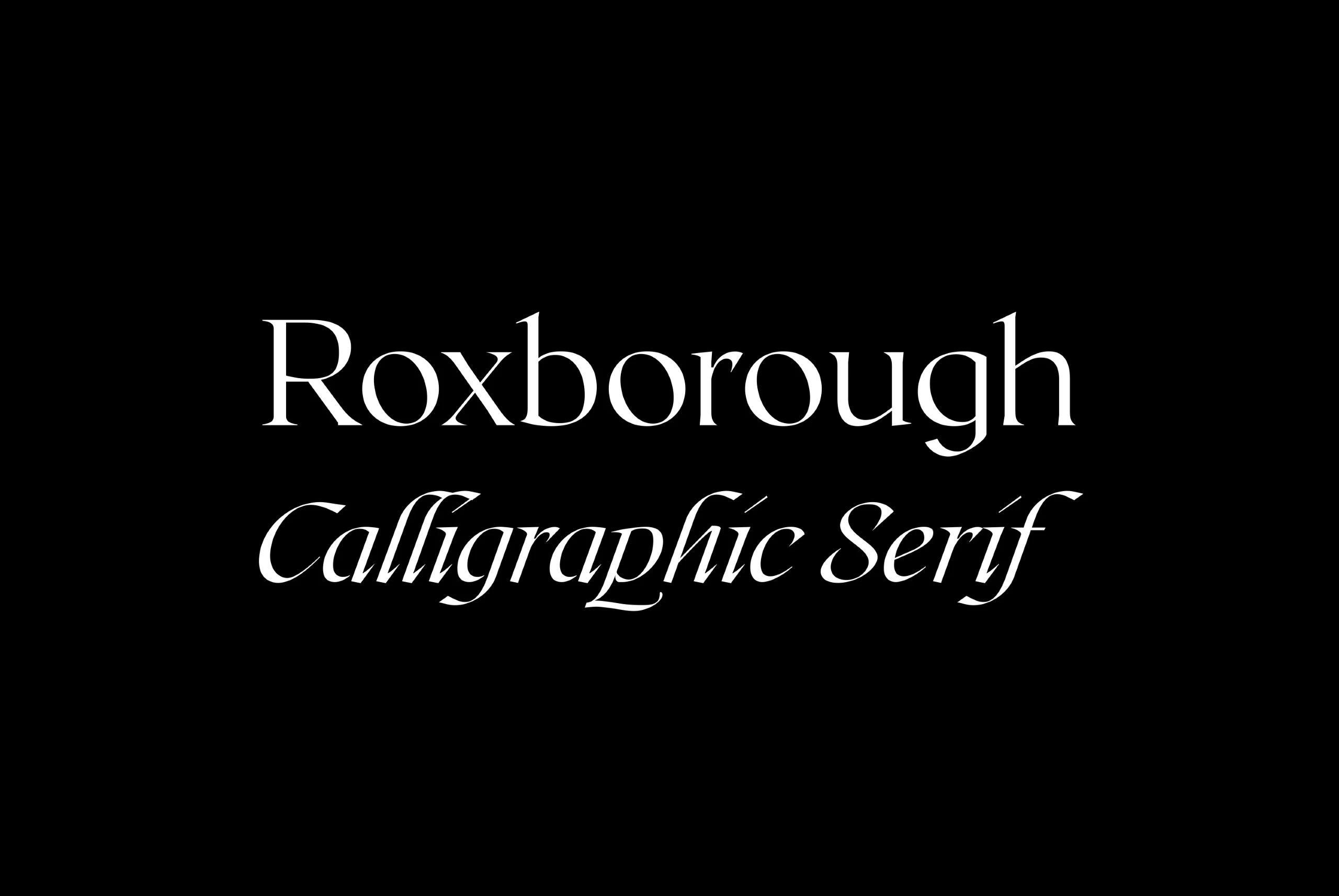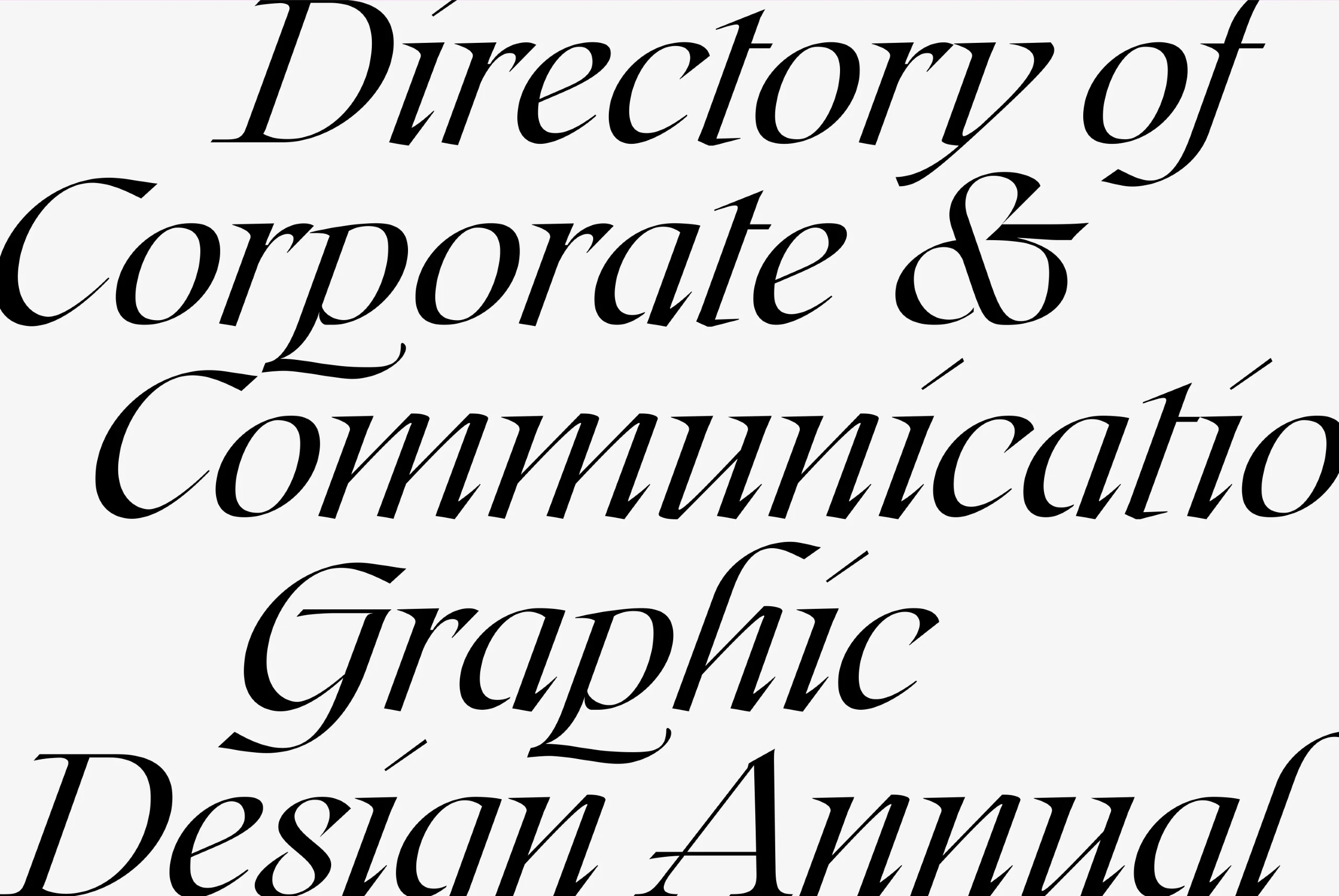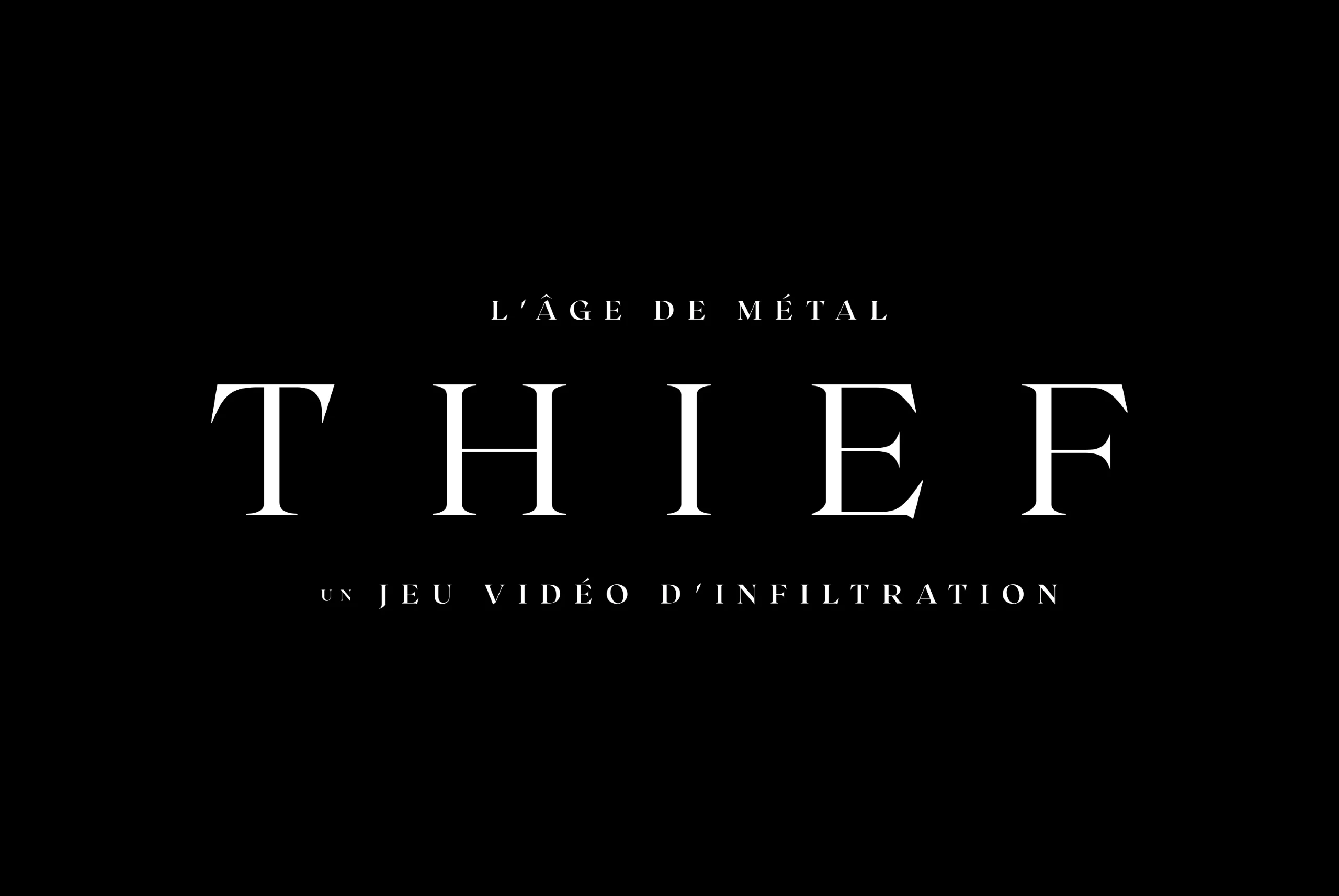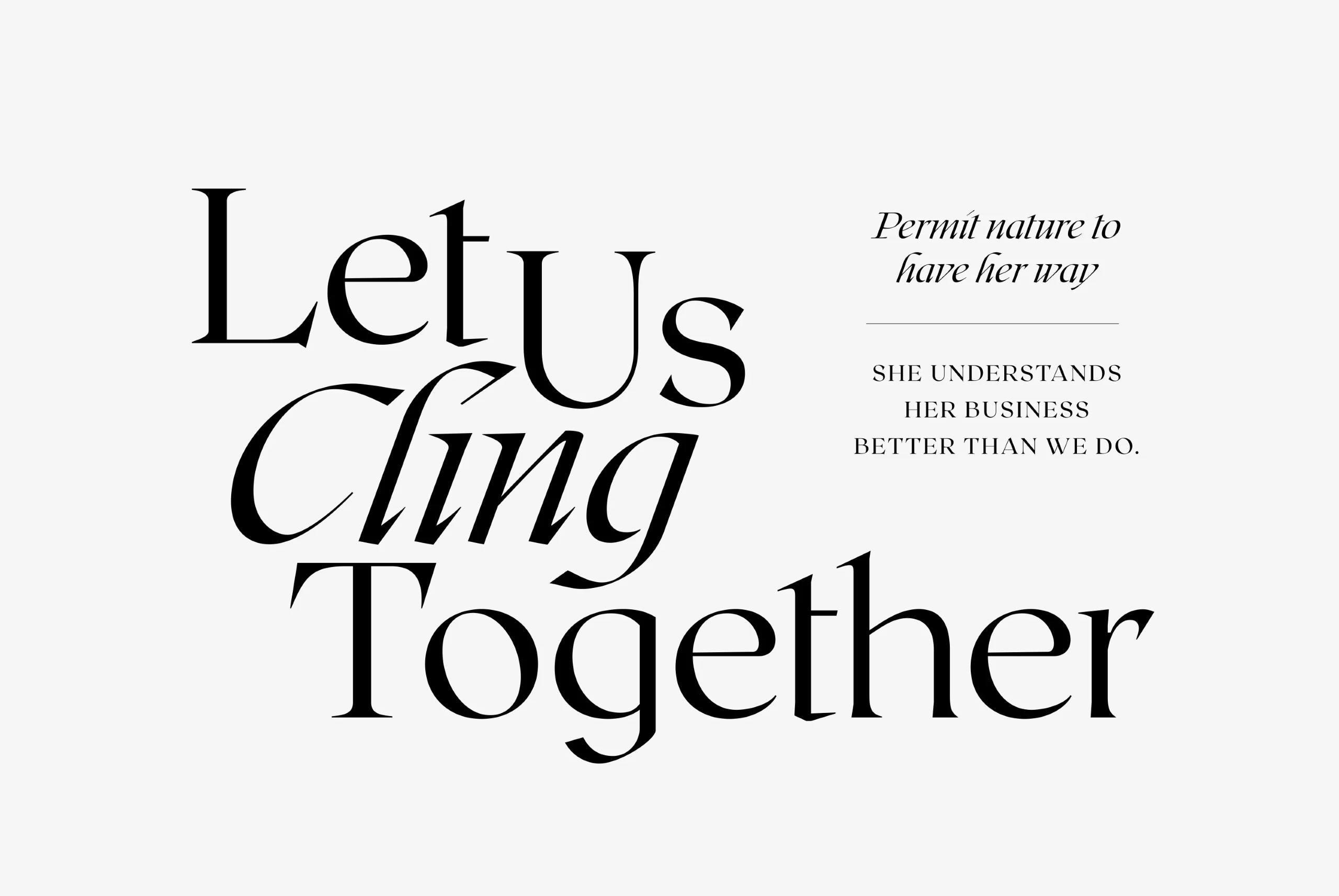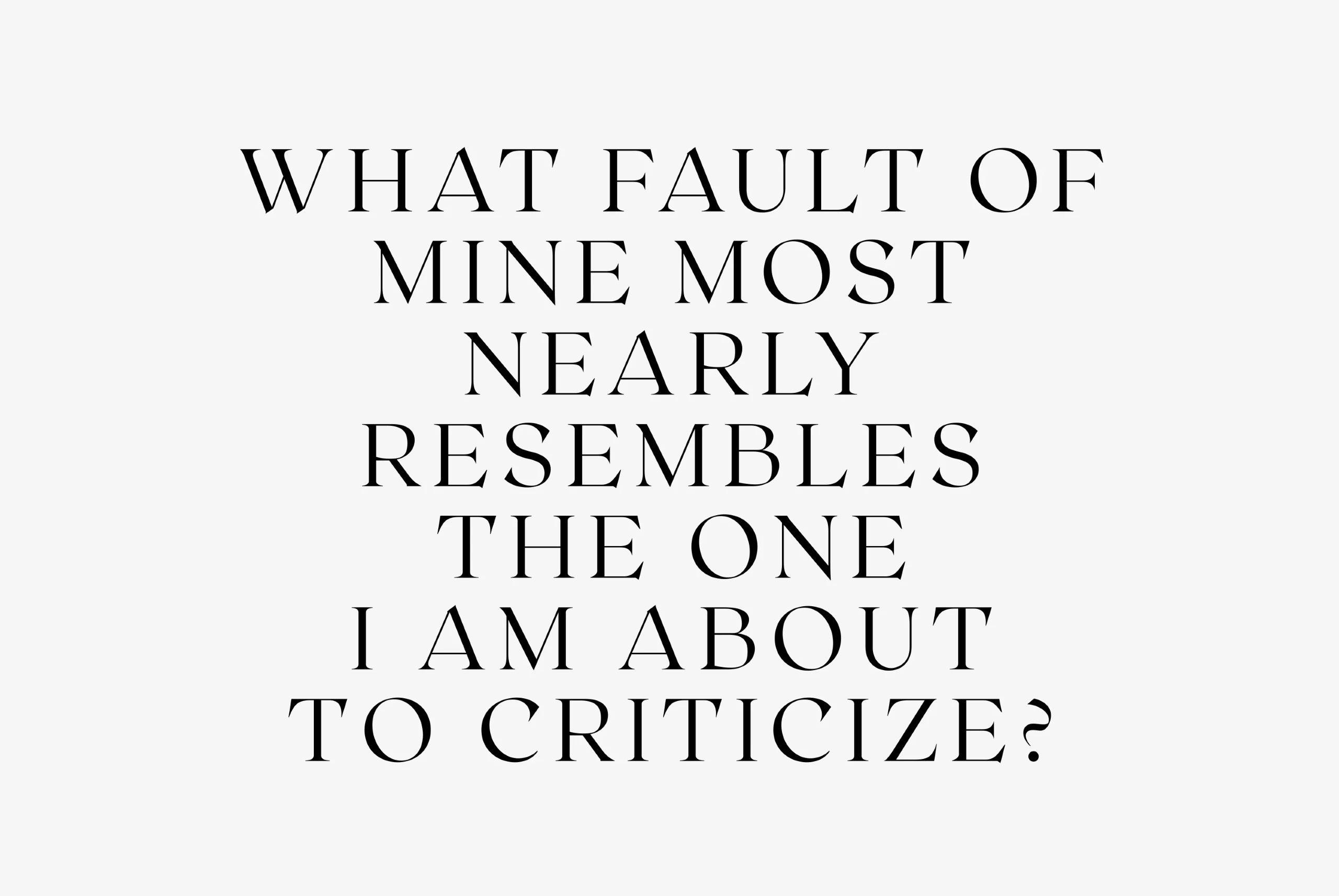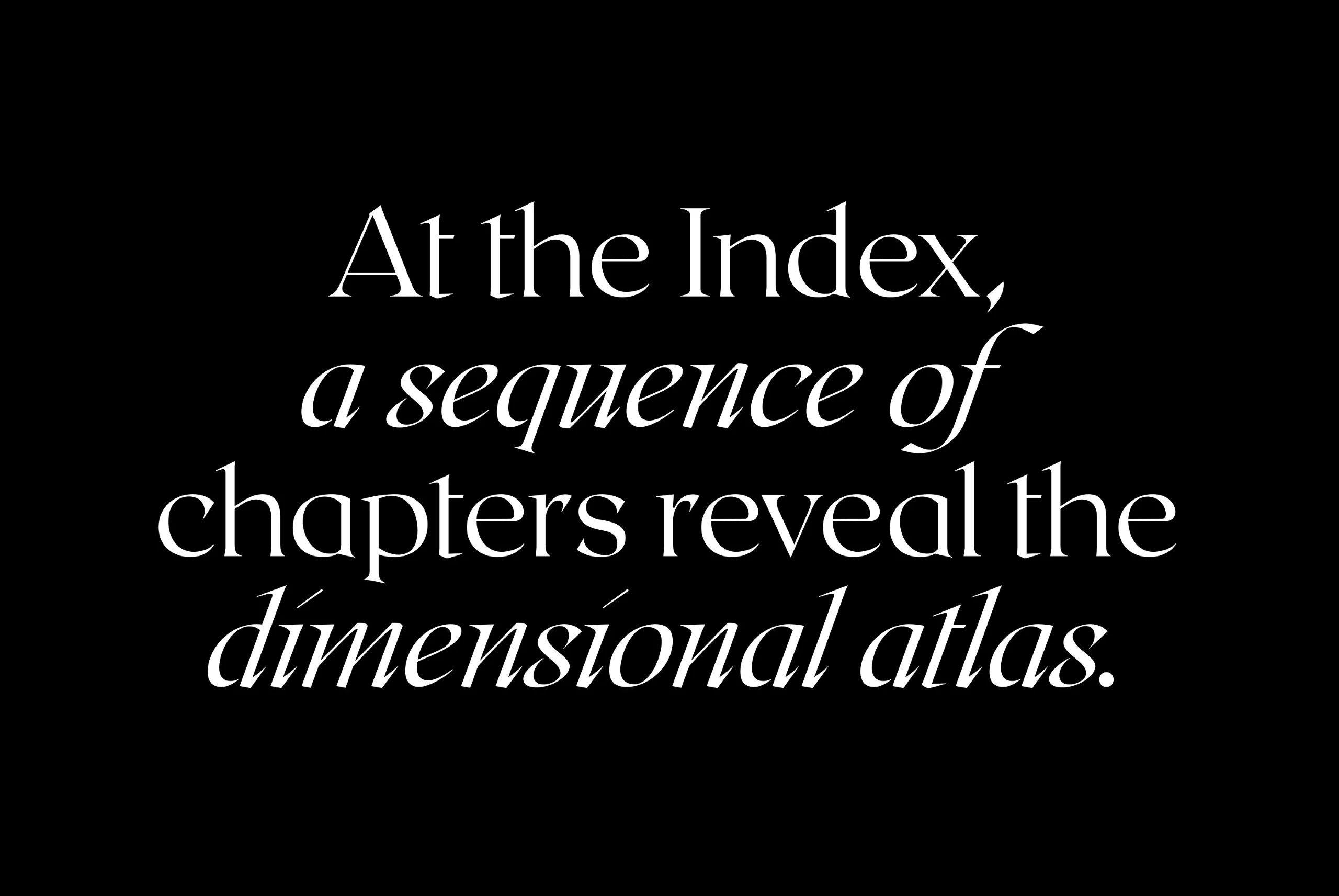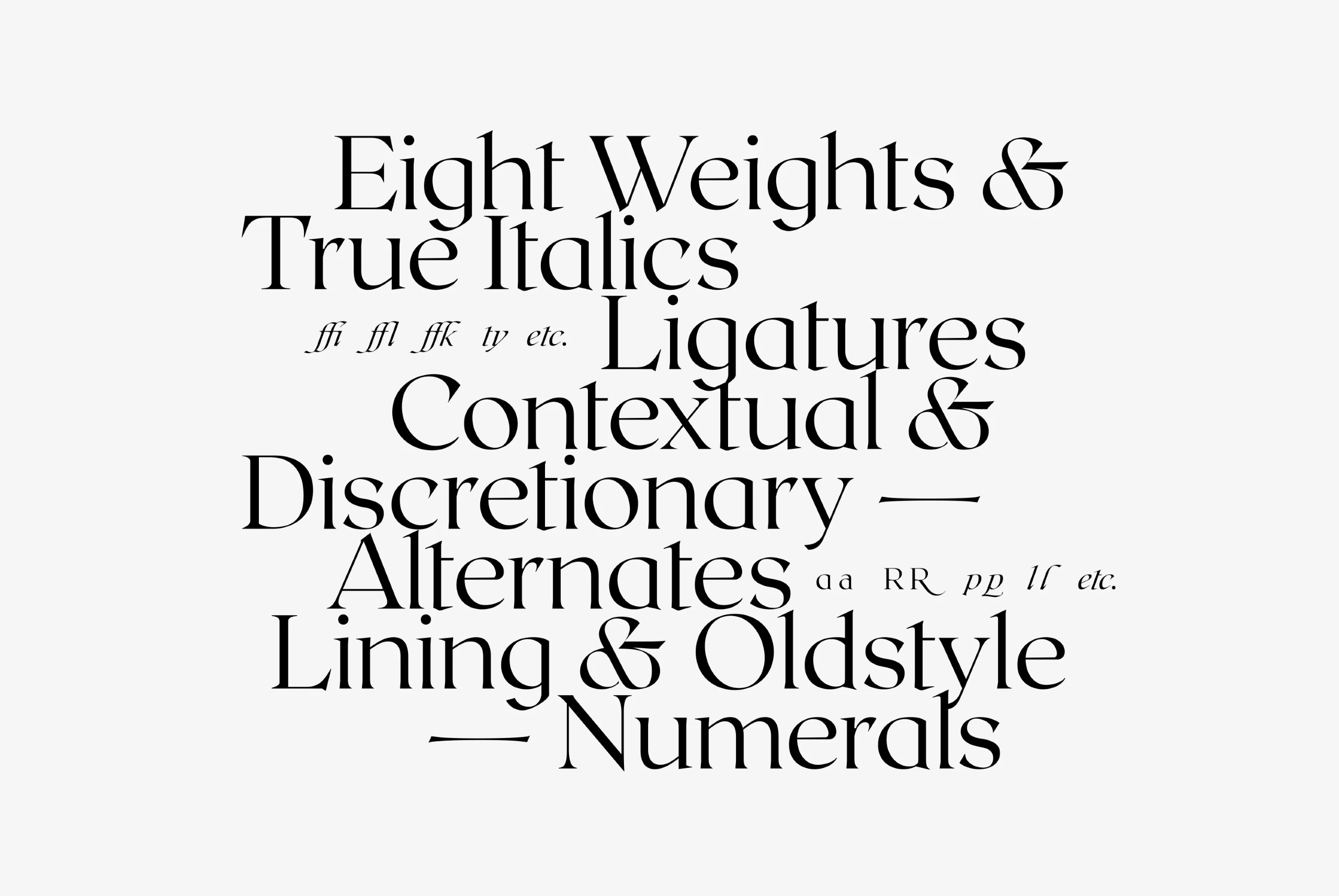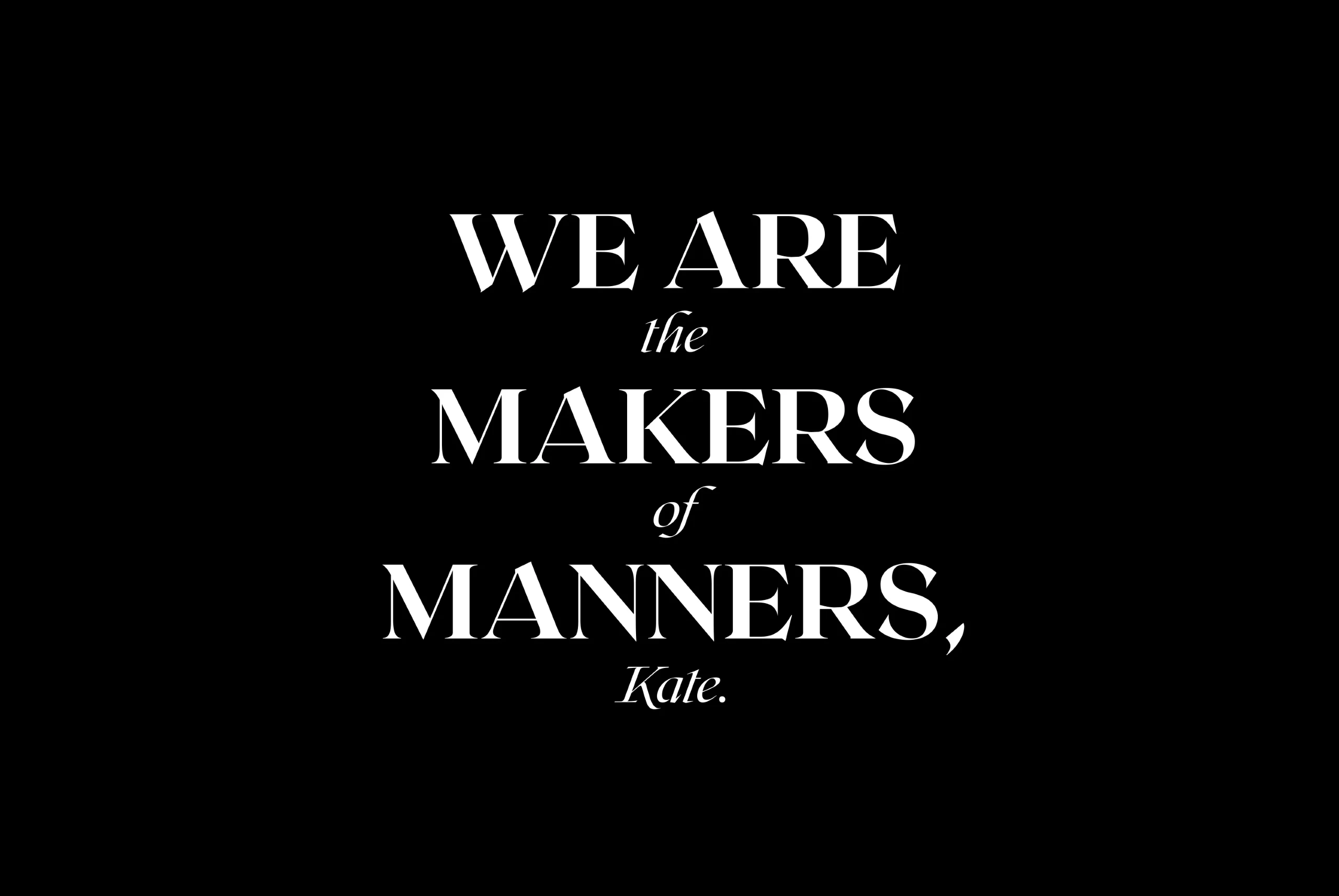
Roxborough
Roxborough Font Family
Roxborough CF is a dramatic, voguish serif, influenced by calligraphy and hand lettering. Rich, open construction — built around a distinctive single-storey “a” — pairs nicely with the stylized, expressive italics. Both traditional and chic, Roxborough transforms text into art; it adapts to many applications, including branding and identity design, display and packaging design, subtitles, and copy.
Roxborough font by Connary Fagen Fonts — the word “Roxborough” in an upright high-contrast serif, and below it the words “Calligraphic Serif” in an italic high-contrast serif.Roxborough font by Connary Fagen Fonts — the words “Directory of Corporate & Communication Graphic Design Annual” in large, high-contrast italic serifsRoxborough font by Connary Fagen Fonts — the word THIEF in large, upright serif capitals, with “L’AGE DE METAL” above and “UN JEU VIDEO D’INFILTRATION” below, both in smaller upright serif capitalsRoxborough font by Connary Fagen Fonts — the words “Let Us Cling Together” in large upright and italic high-contrast serif letters, and a quote in smaller italic serif letters.Roxborough font by Connary Fagen Fonts — the words “Ralliez-vous à mon panache blanc!” in large, high-contrast italic serifs, with “HENRI-QUATRE” and “ROI DE FRANCE ET DE NAVARRE” in smaller upright serifs above and below.Roxborough font by Connary Fagen Fonts — the upright serif text “WHAT FAULT OF MINE MOST NEARLY RESEMBLES THE ONE I AM ABOUT TO CRITICIZE?”Roxborough font by Connary Fagen Fonts — the words “At the Index, a sequence of chapters reveal the dimensional atlas.” in a high-contrast serif typeface, with the first line upright and the rest italic.Roxborough font by Connary Fagen Fonts — the words “Eight Weights & True Italics”, “Ligatures”, “Contextual & Discretionary Alternates”, and “Lining & Oldstyle Numerals” in a serif typeface, with examples of ligatures and alternates in smaller italic text.Roxborough font by Connary Fagen Fonts — the words “WE ARE the MAKERS of MANNERS, Kate.” in upright and italic serif letters
Ligatures
Discretionary Ligatures
Contextual Alternates
Stylistic Set 1
Oldstyle Figures
Ordinals